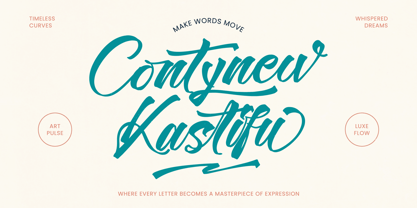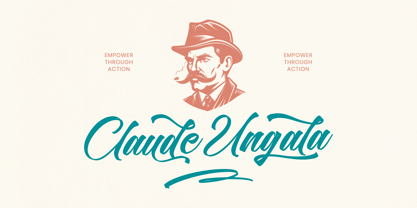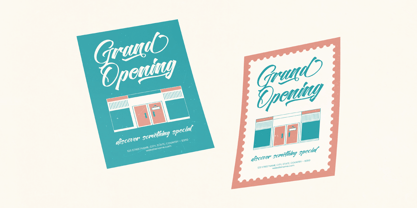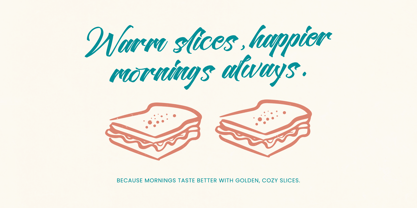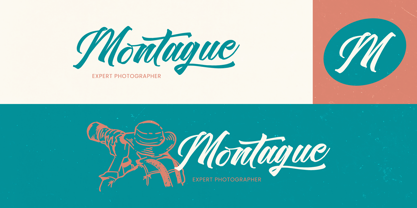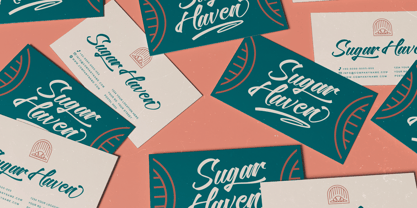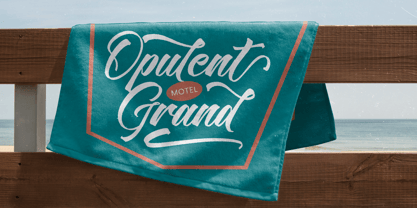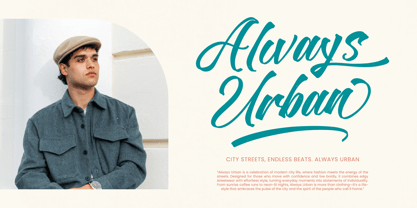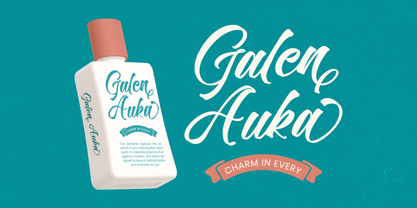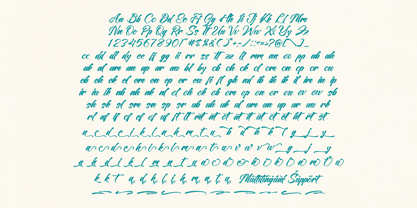
Contynew Kastifu
by Stylishtype Studio
The Contynew Kastifu Font Family was designed by Heru Utama Putra and published by Stylishtype Studio. Contynew Kastifu contains 2 styles and family package options. More about this family
Contynew Kastifu - Bold Calligraphy Font, a masterpiece of expressive typography that commands immediate attention. This high-impact typeface blends the raw energy of hand-drawn brush strokes with a refined, artistic flow that brings a unique personality to every character. With its dynamic ligatures and fluid swashes, Contynew Kastifu - Bold Calligraphy Font offers a sophisticated aesthetic that is both modern and timeless, making it an essential tool for designers seeking visual excellence.
Discover the perfect solution for luxury branding and high-end editorial design where distinction is paramount. The Contynew Kastifu - Bold Calligraphy Font is perfect for premium packaging, elegant wedding invitations, and impactful logo designs that require a bespoke feel. Whether you are crafting social media graphics or promotional layouts, this versatile calligraphy font adds an instant sense of exclusivity and professional polish to any commercial project.